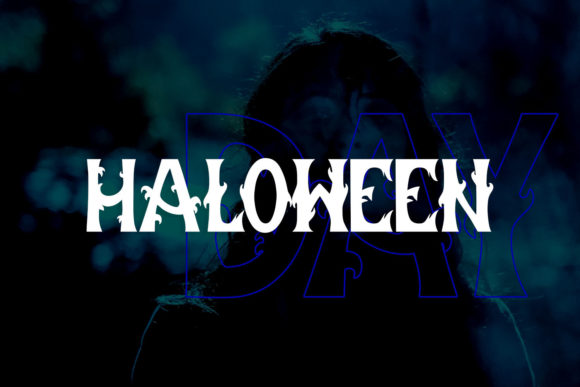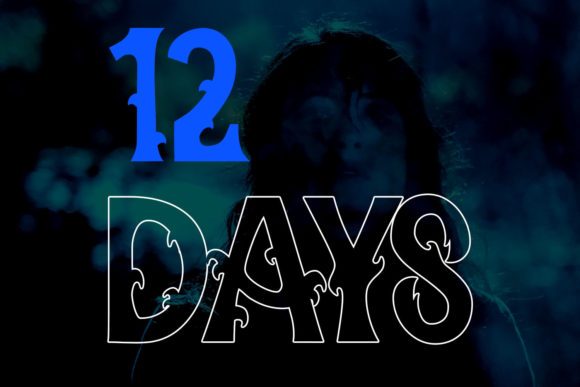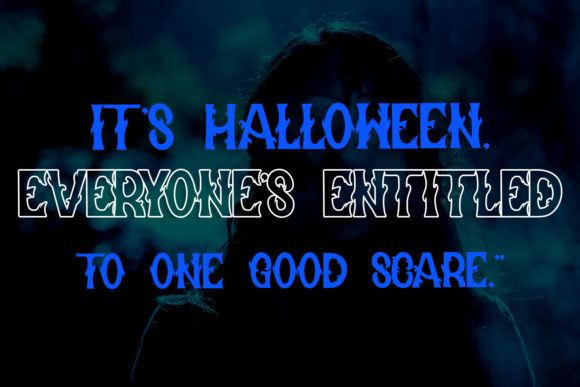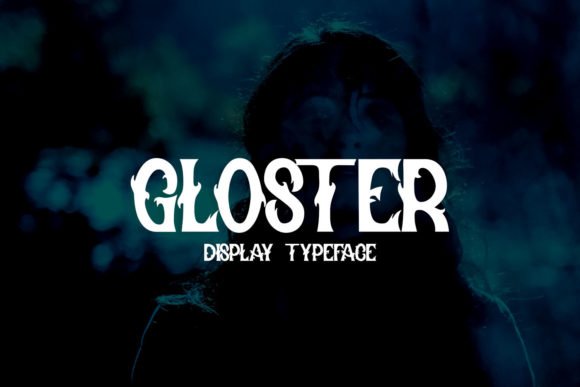
Introduction to Gloster Font
Gloster is an assertive and gothic styled display font.
This font is imposing and features uniquely shaped letters, and as a result, it will easily match a wide range of creations that require a distinct touch .
Key Features of Gloster Font
Why Choose Gloster Font?
Gloster Font offers exceptional quality and versatility, making it a valuable addition to your design toolkit. Whether you’re creating for personal projects or commercial use, Gloster Font delivers professional results.